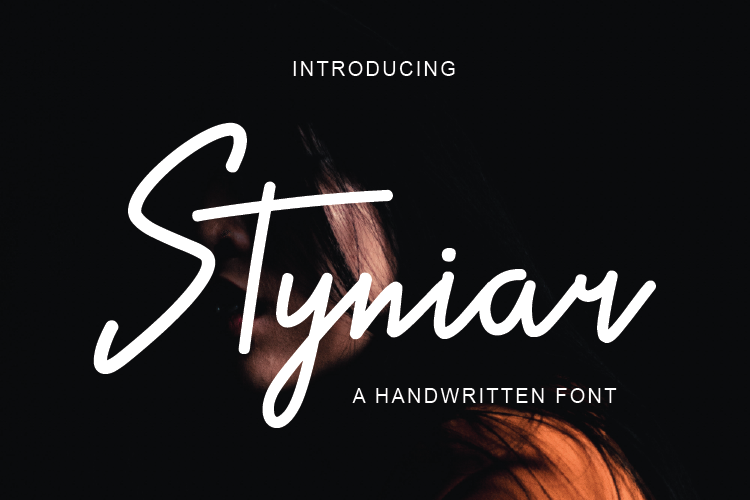
Styniar Font
The Styniar is a simple handwritten script. It has an elegant look and can be used to make your designs stand out.It can be used for logos, wedding invitations, titles, signatures, t-shirts, letterheads, signs, labels, posters, and more!